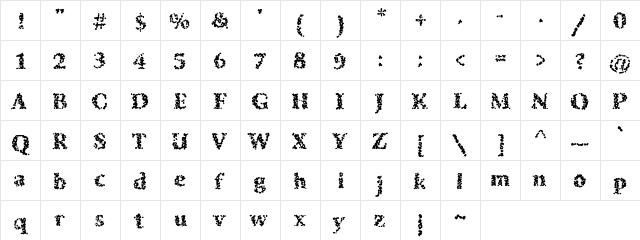
SibleyPotatoBaked Medium
Design Context for SibleyPotatoBaked Typeface
SibleyPotatoBaked is a composed and adaptable typeface that performs quietly and consistently across a wide range of design contexts.